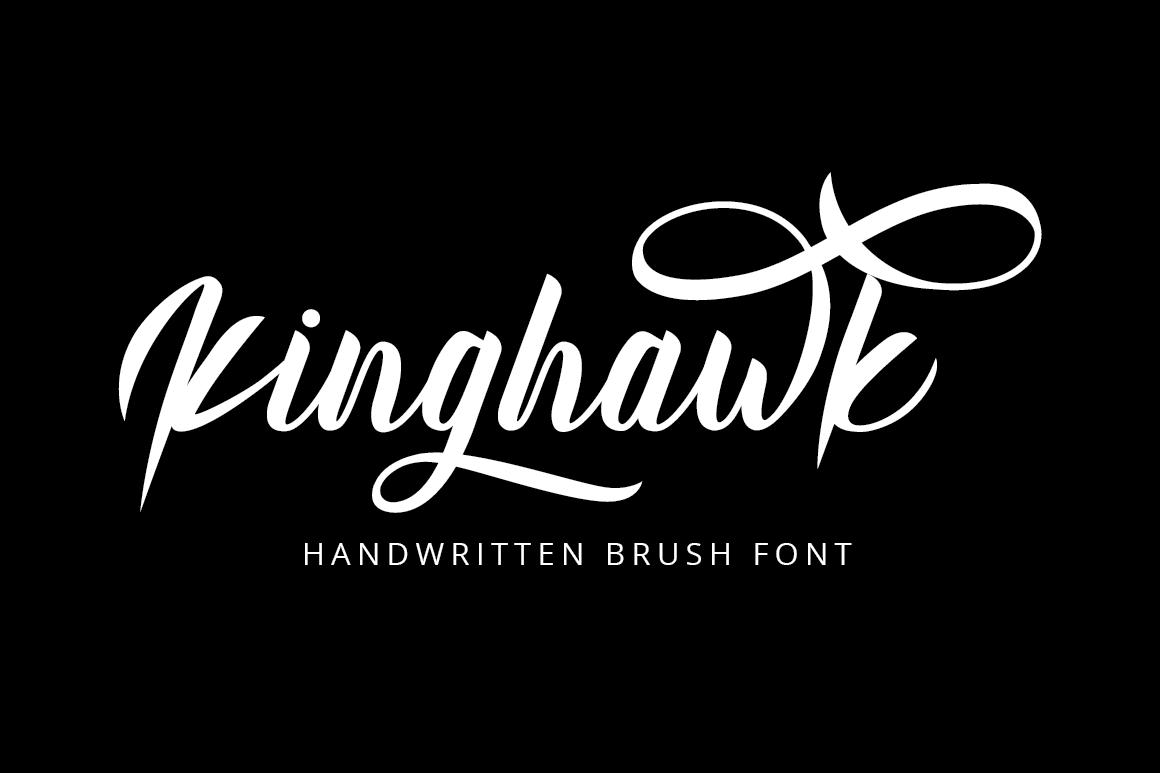
Kinghawk Font Description
Kinghawk is an elegant and flowing handwritten font. It is PUA encoded which means you can access all of the glyphs and swashes with ease! It maintains its classy calligraphic influences while feeling contemporary and fresh. Fall in love with this font and bring your projects to the highest levels!